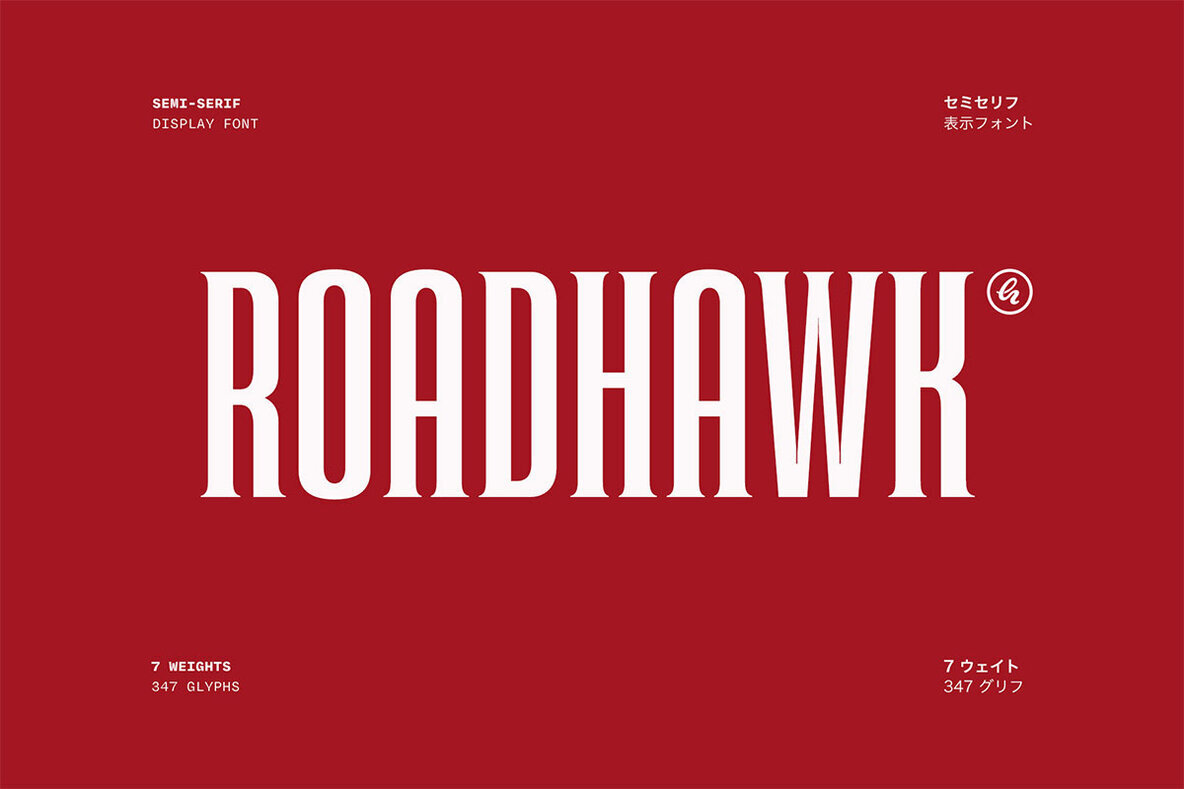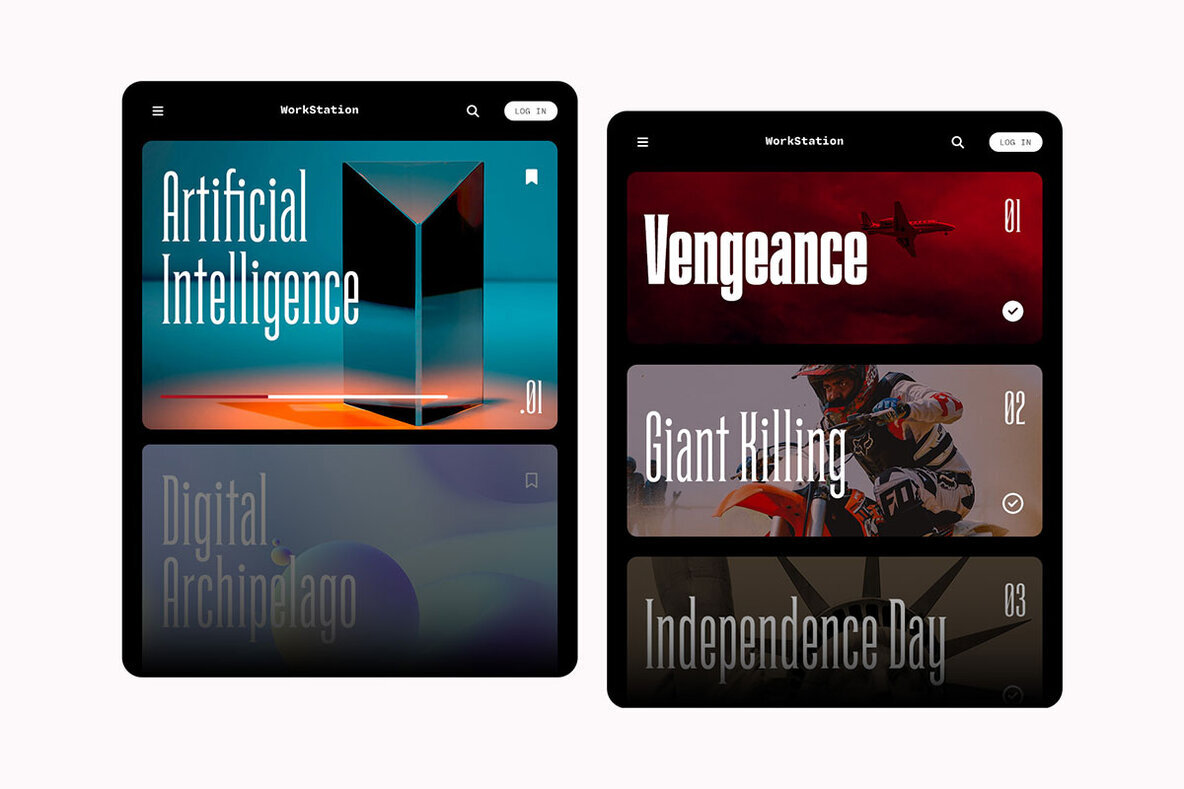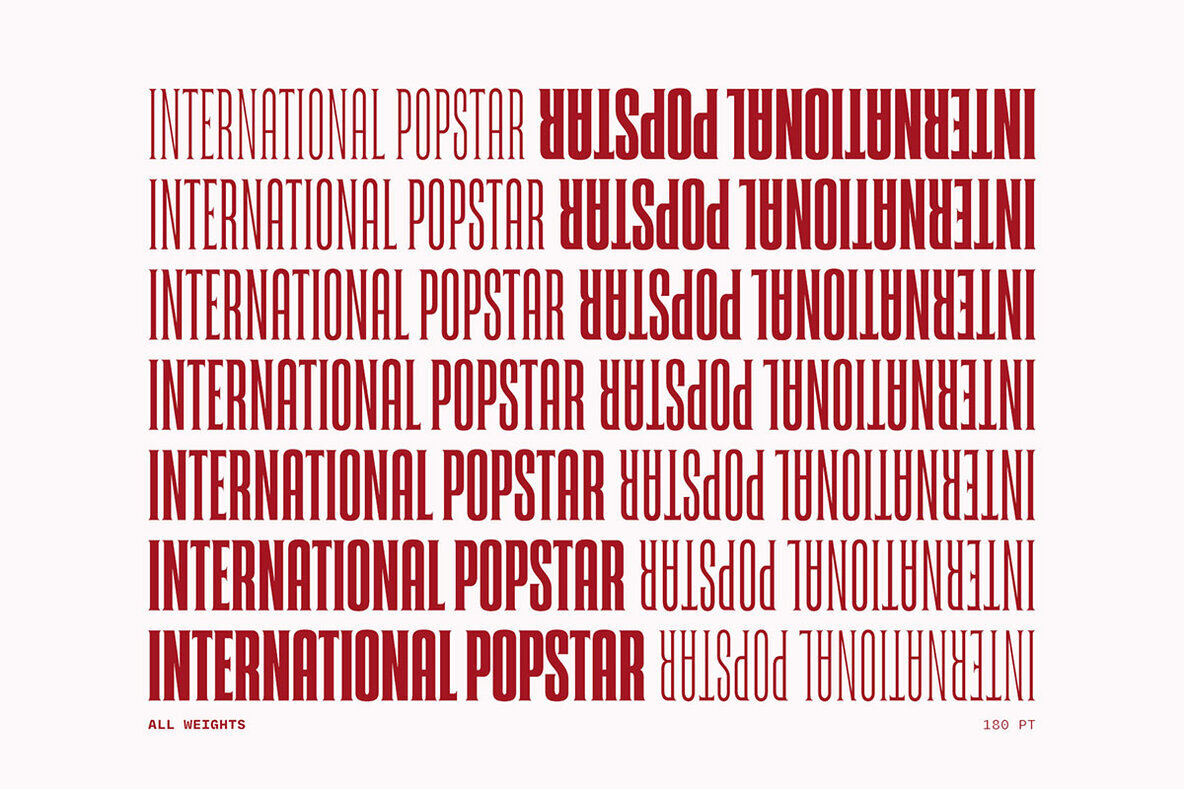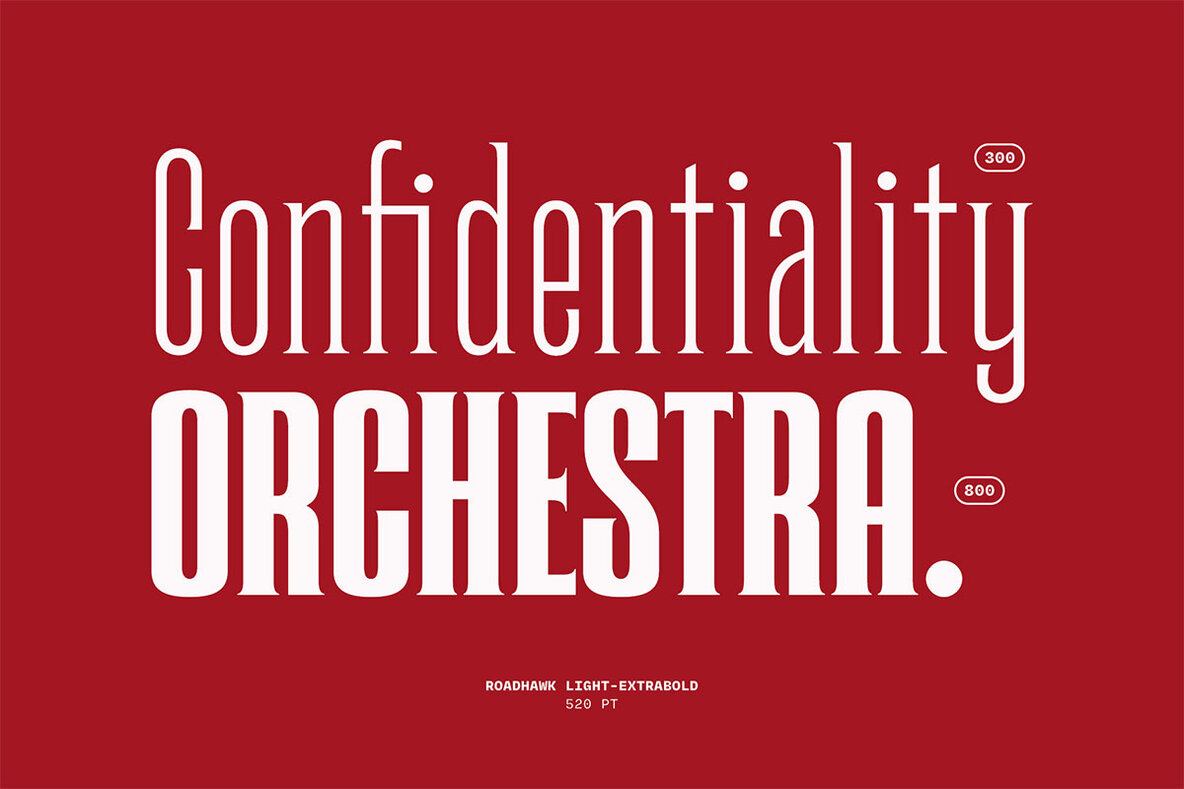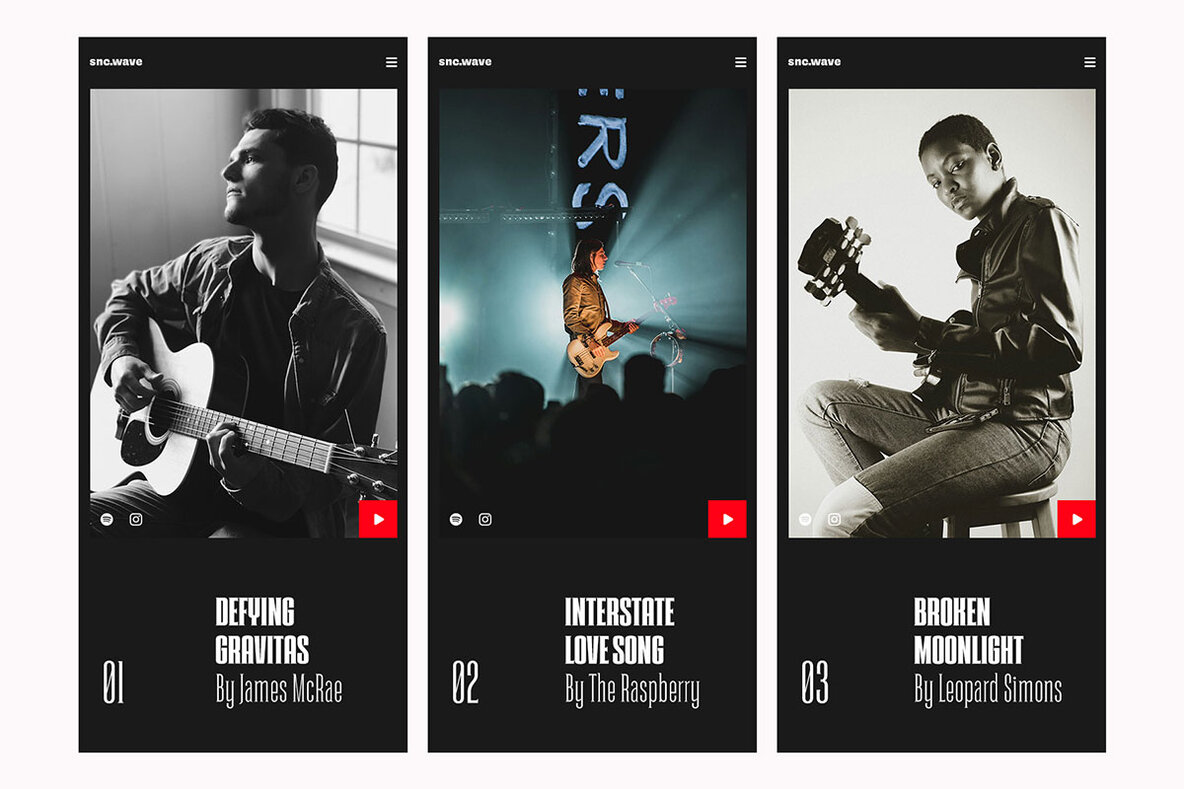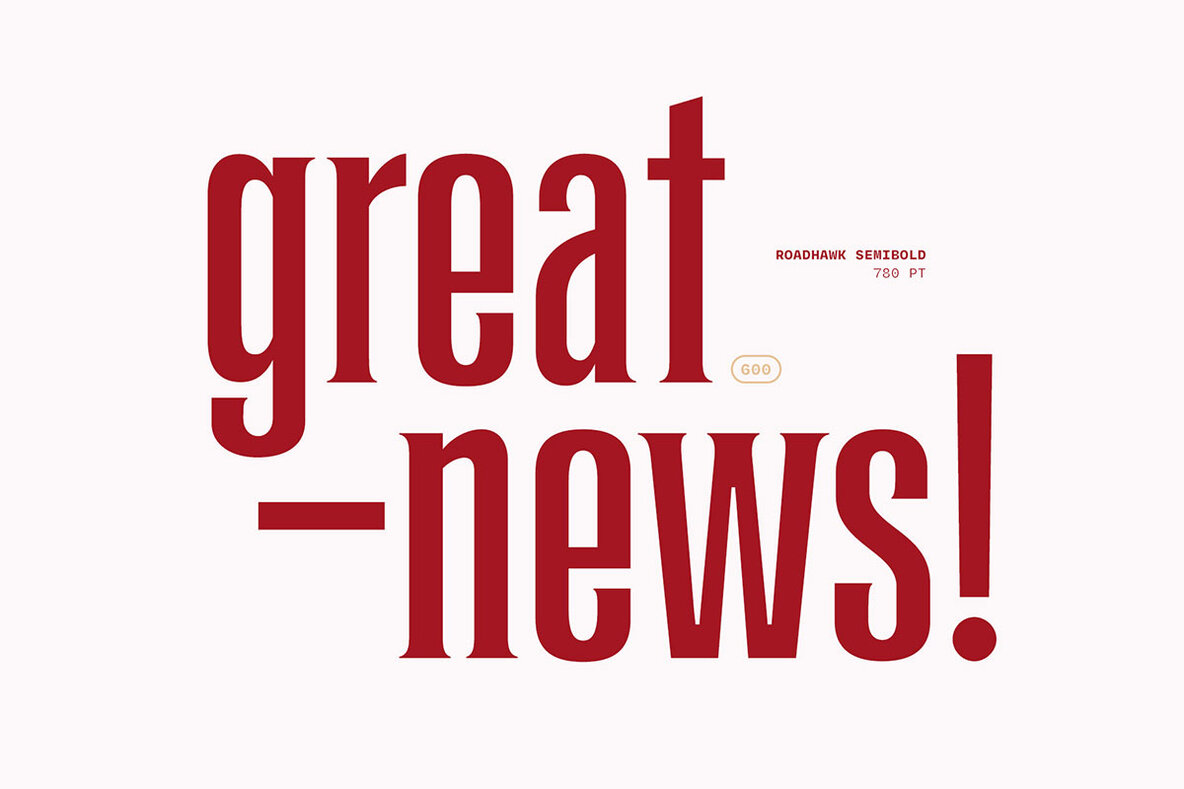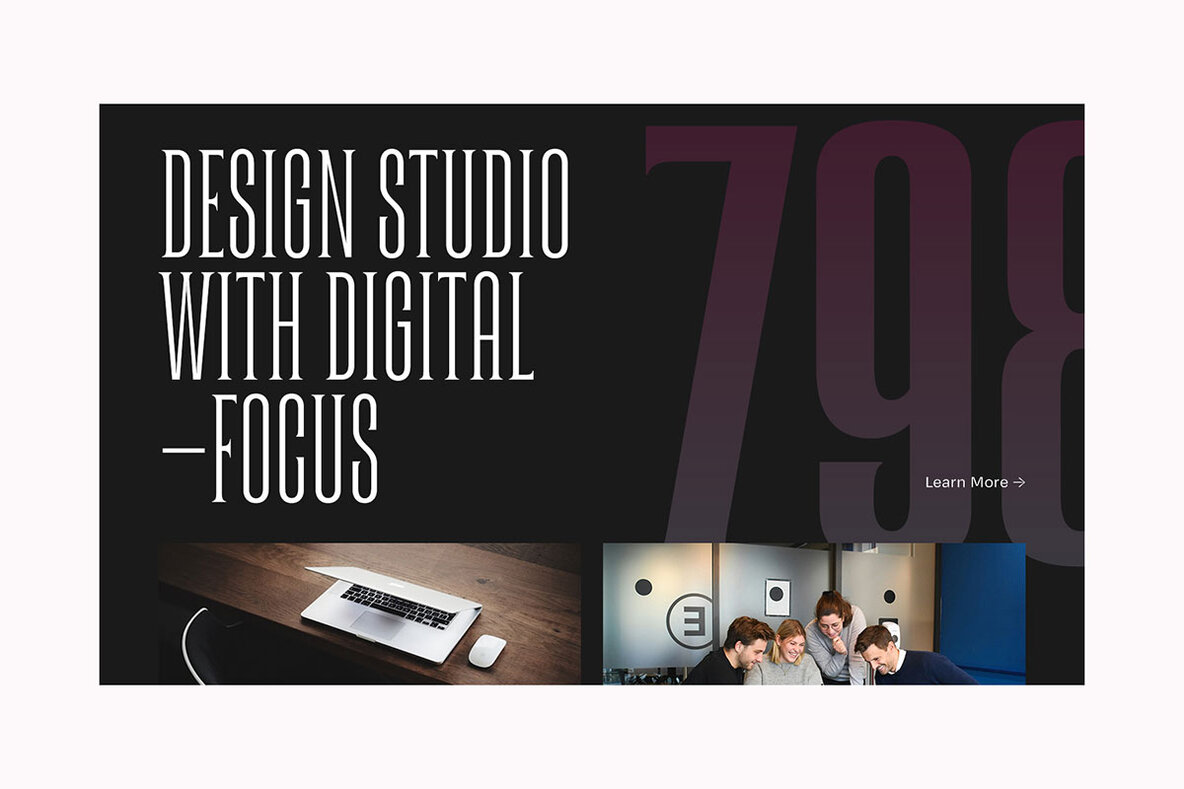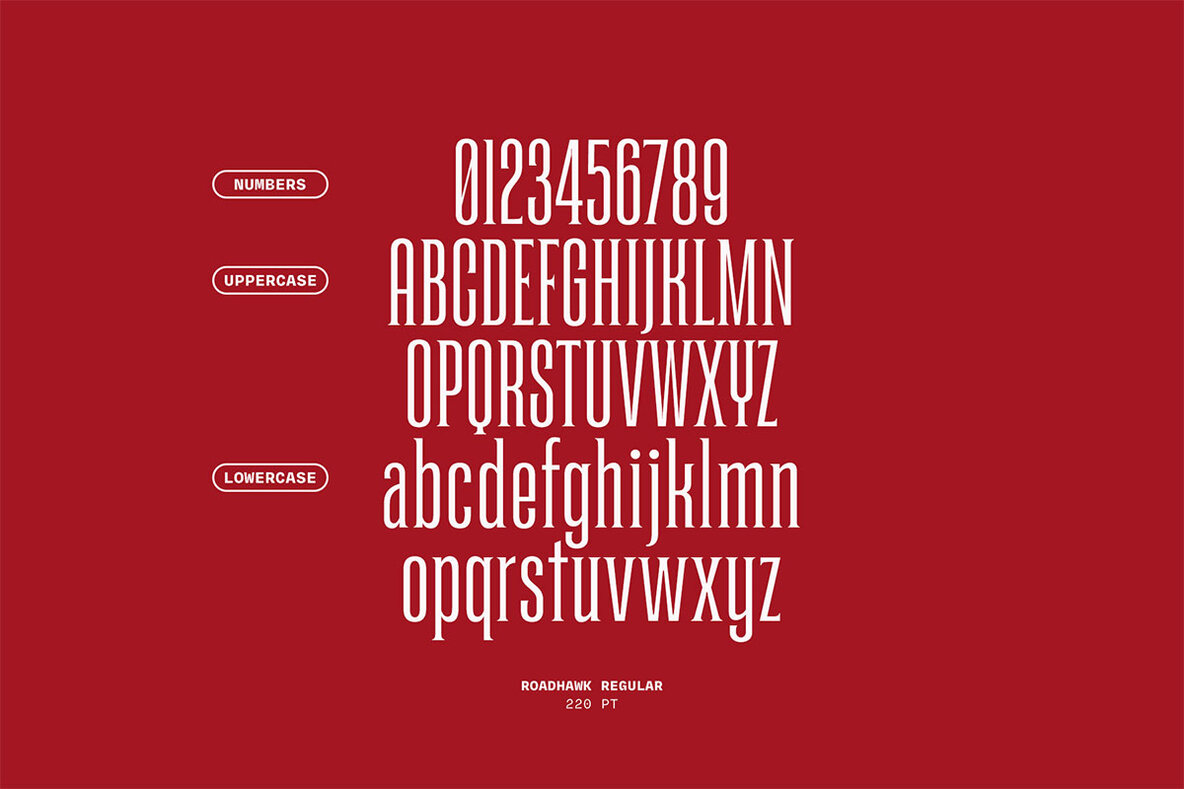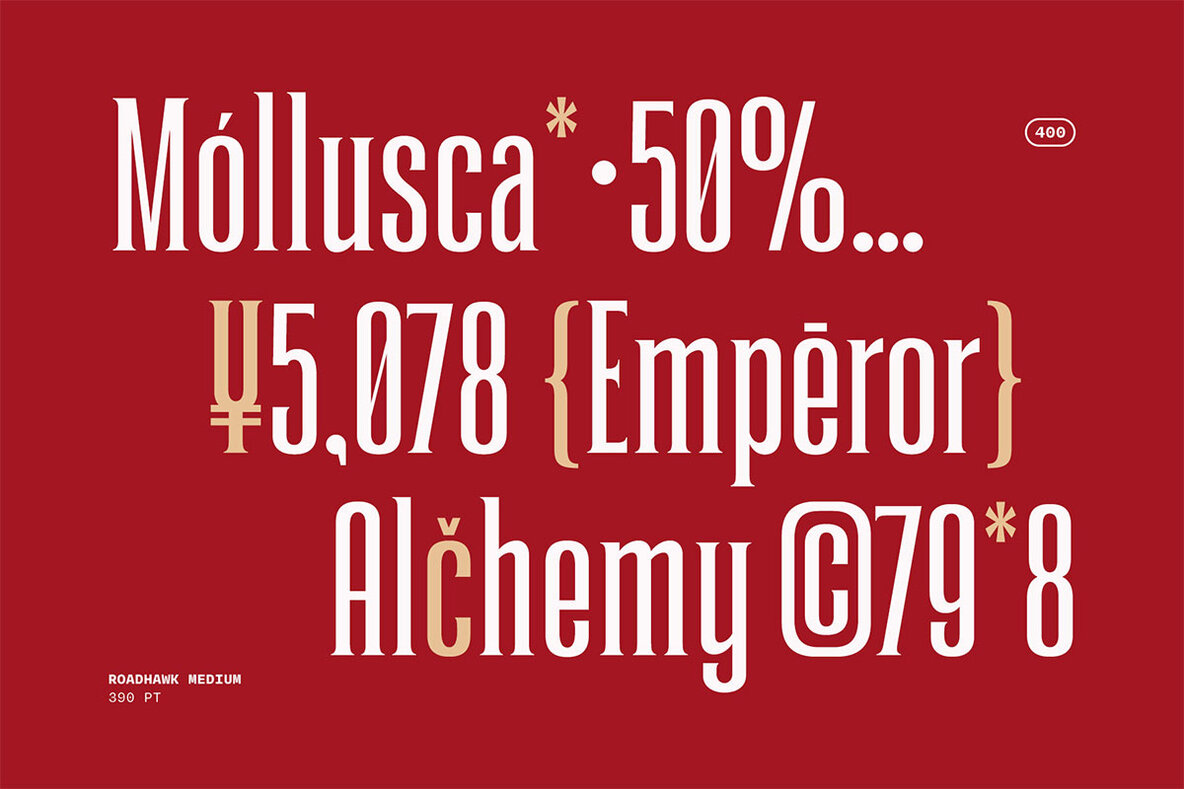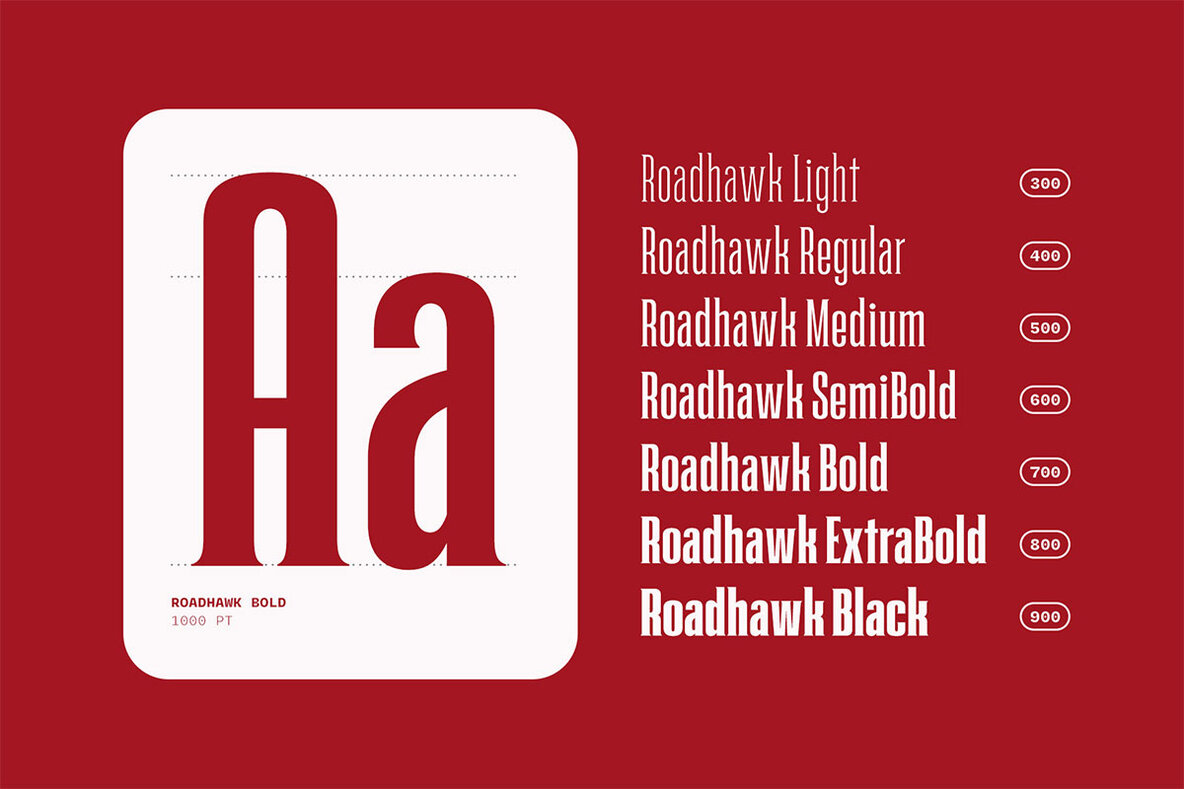
Roadhawk Font
Roadhawk offers a modern, utilitarian approach to type design, ideal for those seeking clarity and versatility in their projects. Designed with minimal serifs and decorative elements, this condensed semi-serif display typeface prioritizes legibility and functionality. It is an excellent choice for signage, technical documentation, and digital interfaces where readability at a glance is crucial.
The uniform stroke widths and open letterforms of Roadhawk enhance visibility across a range of sizes, making it a reliable choice for varied applications. Its comprehensive character set supports multiple languages and symbols, ensuring its adaptability for global projects. Whether used in branding, UI/UX design, or industrial labeling, Roadhawk provides a blend of practical utility with a subtle modern aesthetic, meeting the diverse needs of graphic and digital designers.